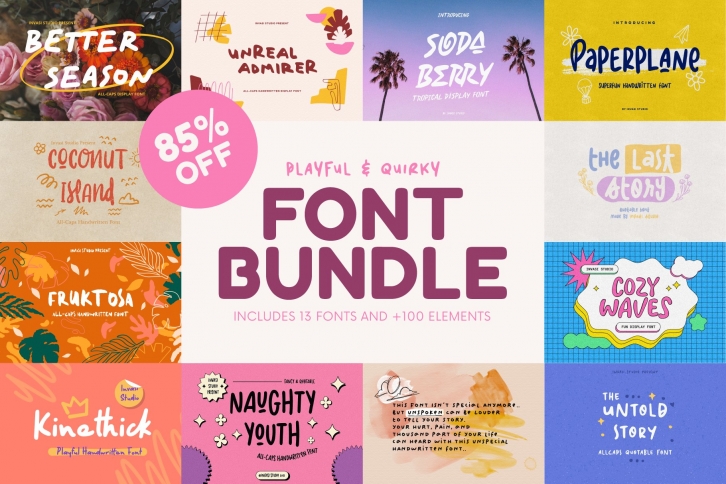
Playful Bundle SALE!! is a gorgeous font that was realeased on September 6, 2021. The font can be used in many style contexts and design environments. Perfect for invitations, magazines, websites, logos, and more! It was designed by Invasi Studio and the file size is 17.47 MB. Thanks for checking out this font!